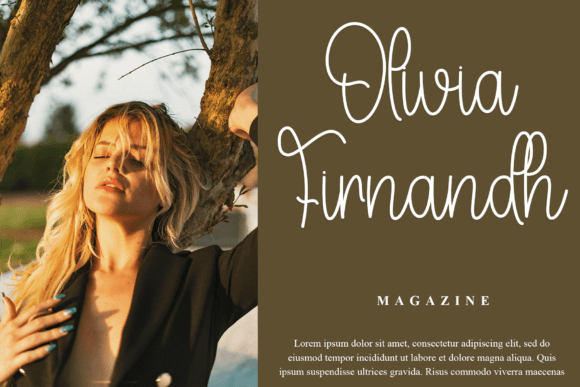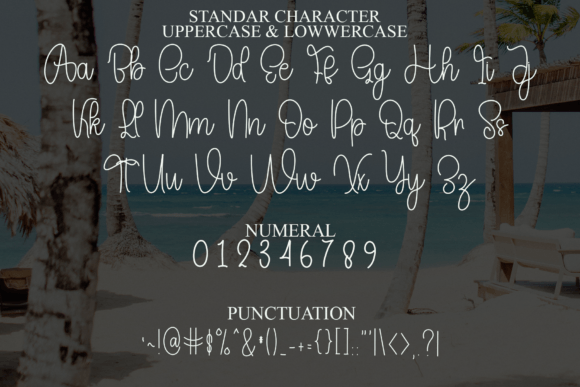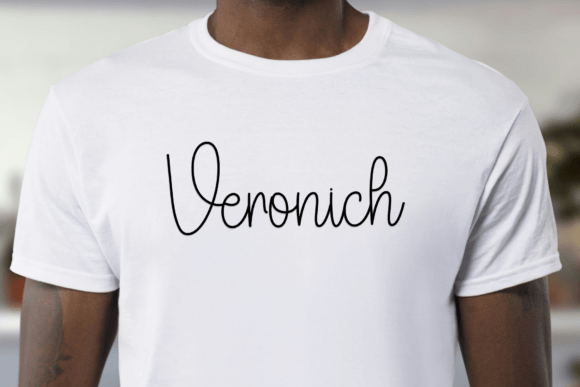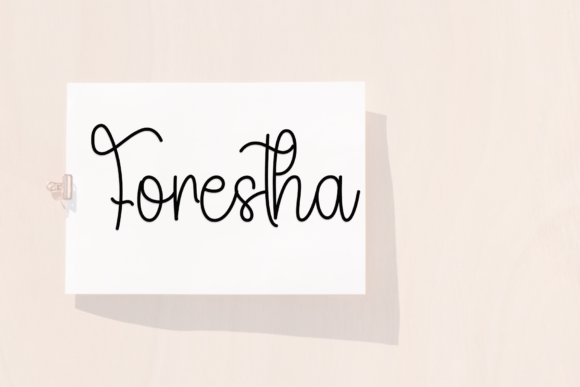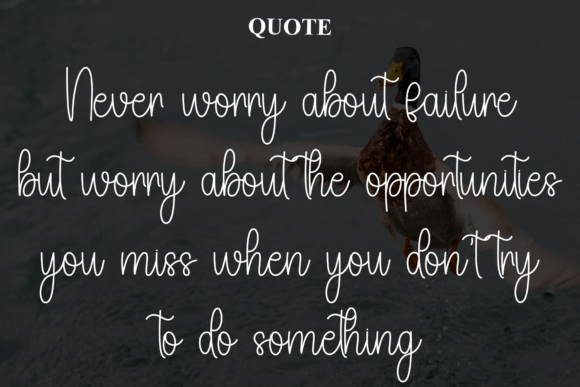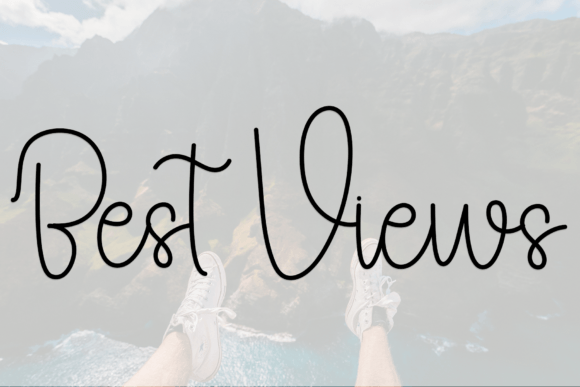
Original Adventure Font – Free Download
Introduction to Original Adventure Font
Original Adventure is a casual script font that exudes warmth and friendliness.
Its rounded, playful strokes give a relaxed and approachable feel, perfect for personal projects, invitations, and social media graphics The fontโs charming, hand-drawn aesthetic adds a delightful, whimsical touch to any design.
Key Features of Original Adventure Font
Why Choose Original Adventure Font?